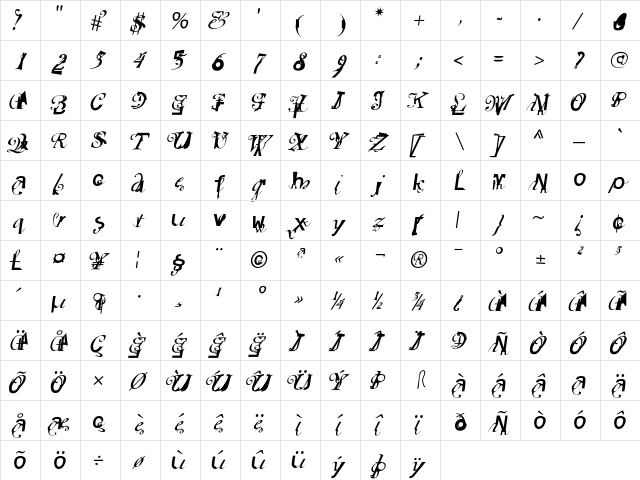
BlueEyeShadow Regular
Design Context for BlueEyeShadow Typeface
BlueEyeShadow brings ornamental detail and strong personality to headlines and identities, where visual impact matters more than quiet functionality.
Font Pairing: Pair with a clean neutral sans-serif for body copy to let BlueEyeShadow's character lead without overwhelming the composition.
Pro Tip: Treat BlueEyeShadow as the centrepiece of your typographic hierarchy. One strong heading set in a decorative face can carry an entire layout.